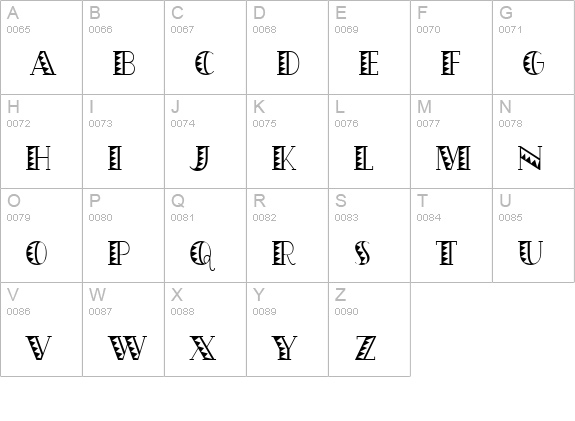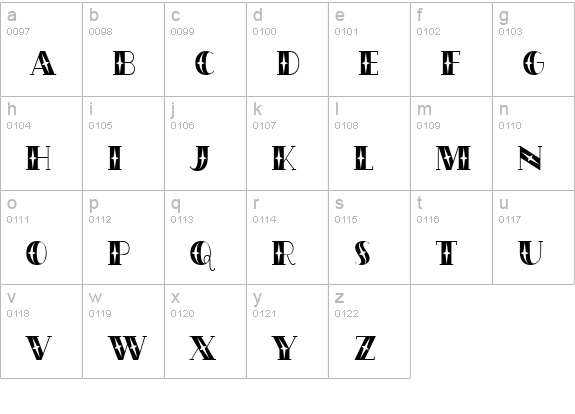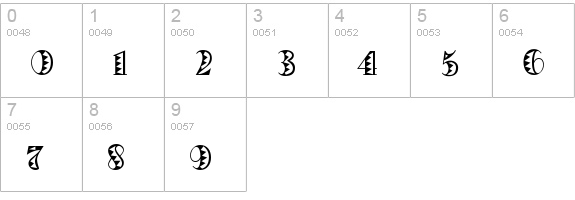
OakParkZiggy font is a whimsical and playful typeface that exudes a sense of charm and creativity. Its unique design features quirky zigzag patterns that give it a fun and lively appearance. This font is perfect for projects that require a touch of personality and character, such as children's books, posters, and invitations. The best part about OakParkZiggy font is that it is completely free to download at FontsMarket.com. This means that you can easily access this delightful typeface and use it in your design projects without any cost. Whether you're a designer looking to add a touch of fun to your work or simply someone who appreciates unique fonts, OakParkZiggy font is a fantastic choice that won't break the bank. Download it today and let your creativity shine with this charming and free typeface.